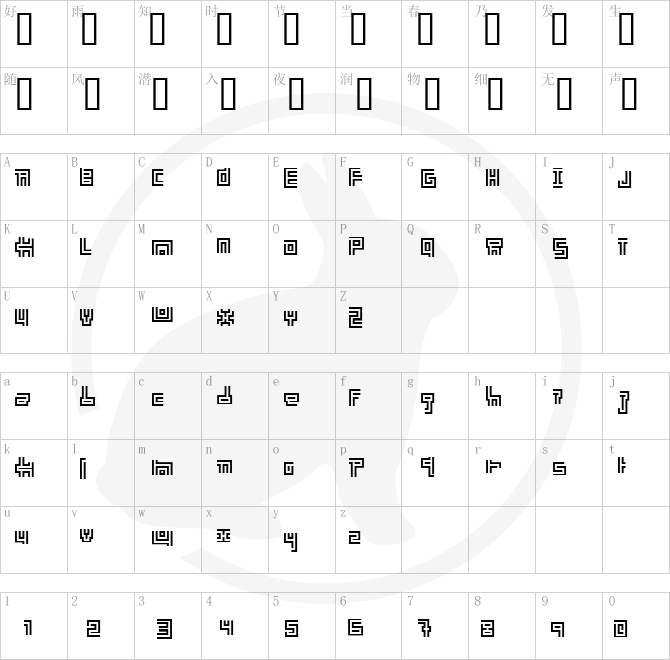
- Font Name:Earth People
Earth-People.ttf is a very beautiful artistic font, Earth-People.ttf is widely used in the design and printing of various books and pictures,Earth-People.ttf has a strong visual impact,Earth-People.ttf is a commonly used font in newspapers, magazines and books, and is used in posters, e-commerce Poster design, store design, logo design, font design and other fields.Earth-People.